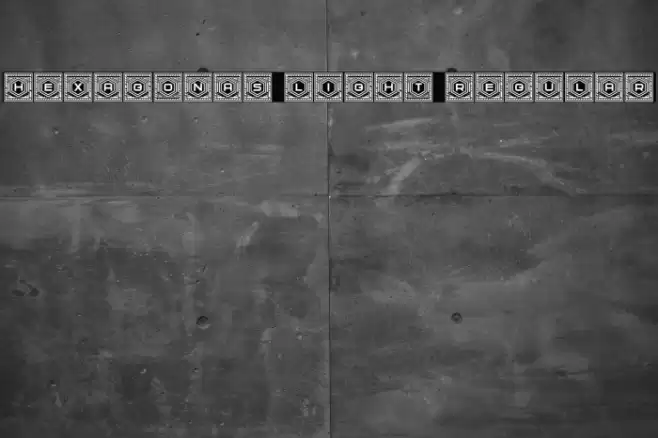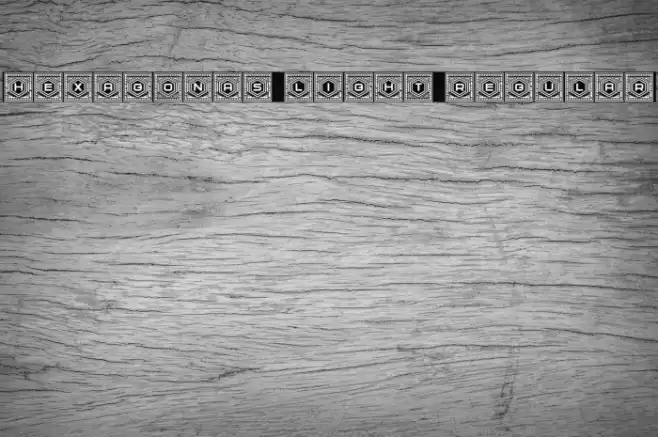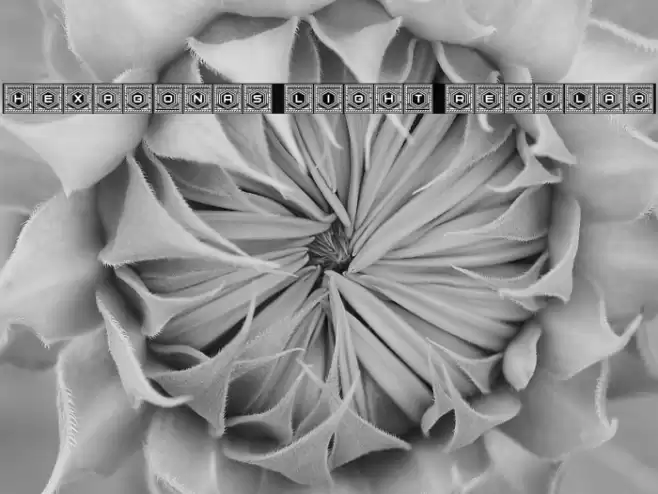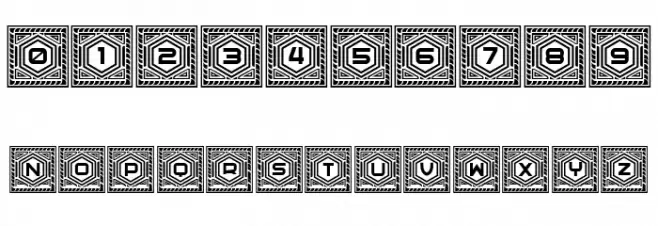
Hexagonas Light Regular Font
Hexagonas Light Regular Description
This font features a unique geometric design, with each character enclosed within a hexagonal frame. The letters and numbers are bold and prominent, with intricate line patterns filling the background of each hexagon. The style is highly decorative, making it ideal for projects that require a standout visual element. The characters are evenly spaced within their frames, creating a uniform and cohesive look. This font is particularly suited for creative and artistic projects where a modern and eye-catching aesthetic is desired.
A decorative font with bold characters enclosed in hexagonal frames, featuring intricate line patterns from Uncategorized fonts.
- Proposed Projects: Ideal for posters, album covers, branding, and any project needing a striking visual impact.